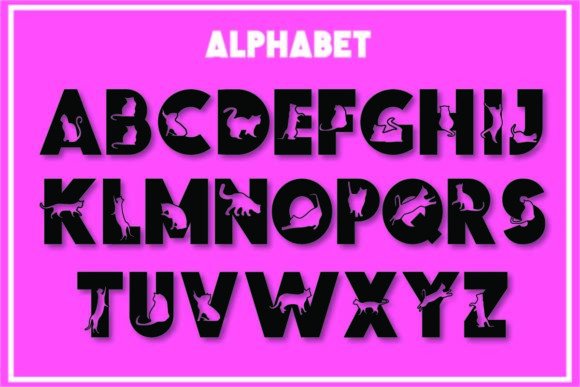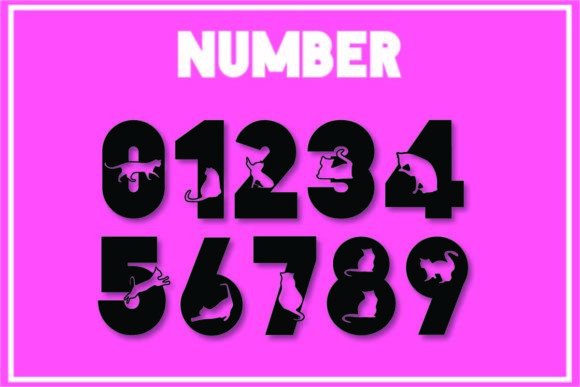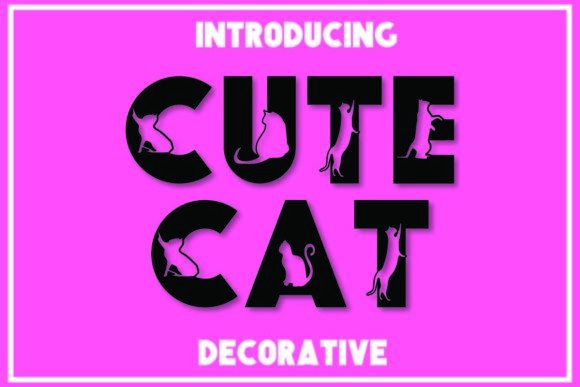
Cute Cat Font: The Purrfect Addition to Your Design Projects
Are you a designer, crafter, or DIY enthusiast looking for a font that embodies fun, playfulness, and authenticity? Look no further than the Cute Cat Font! This adorable decorative font is perfect for a variety of projects, from children’s activities and crafts to t-shirt designs and more.
What is Cute Cat Font?
Cute Cat Font is a unique and charming typeface that features cute and lovable cat-inspired characters. The font is designed to bring a smile to your face and add a touch of whimsy to your designs. With its playful and fun vibe, Cute Cat Font is ideal for projects that require a lighthearted and youthful feel.
Characteristics of Cute Cat Font
So, what makes Cute Cat Font so special? Here are some of its key characteristics:
- Playful and fun: Cute Cat Font is the perfect choice for projects that require a playful and fun vibe. Its bouncy and carefree characters are sure to bring a smile to your face.
- Cute and lovable: The font features adorable cat-inspired characters that are sure to melt hearts. Whether you’re designing for kids or adults, Cute Cat Font is sure to delight.
- Authentic and unique: Cute Cat Font is a one-of-a-kind typeface that is sure to make your designs stand out. Its unique characters and playful vibe ensure that your projects will be noticed.
Use Cases for Cute Cat Font
Cute Cat Font is a versatile typeface that can be used for a variety of projects, including:
- Children’s activities: Cute Cat Font is perfect for designing activity sheets, coloring books, and other kids’ materials.
- Crafts: The font is ideal for crafting projects, such as making cards, gift tags, and other DIY crafts.
- T-shirt designs: Cute Cat Font is a great choice for designing fun and playful t-shirts, especially for kids’ clothing.
- Stationery and invitations: The font can also be used to create cute and playful stationery, invitations, and party decorations.
Why Choose Cute Cat Font?
So, why should you choose Cute Cat Font for your design projects? Here are some reasons:
- Easy to read: Despite its playful vibe, Cute Cat Font is easy to read and understand, making it perfect for body text and headlines.
- Highly versatile: The font can be used for a variety of projects, from digital designs to print materials.
- Unique and authentic: Cute Cat Font is a one-of-a-kind typeface that will make your designs stand out from the crowd.
Tips for Using Cute Cat Font
Here are some tips for using Cute Cat Font in your design projects:
- Pair with other fonts: Cute Cat Font can be paired with other fonts to create a unique and interesting contrast.
- Use for headlines and titles: The font is perfect for headlines and titles, where you want to grab attention and add a playful touch.
- Experiment with colors: Cute Cat Font looks great in a variety of colors, so don’t be afraid to experiment and find the perfect hue for your design.
In conclusion, Cute Cat Font is a fun, playful, and authentic typeface that is perfect for a variety of design projects. Its cute and lovable characters make it ideal for children’s activities, crafts, t-shirt designs, and more. With its ease of use, versatility, and unique vibe, Cute Cat Font is sure to become a favorite among designers, crafters, and DIY enthusiasts.